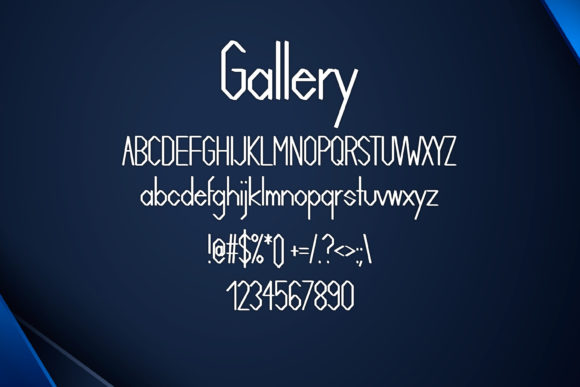
Bring Your Designs to Life with the Perfect Display Font
Have you ever been brainstorming a new project, and suddenly a spark of creativity hits you? Maybe it’s a fresh logo idea, a bold headline, or a playful pattern – whatever it is, it’s that moment when everything comes together, and you can’t wait to see it come to life. That’s exactly what happens when you pair your imagination with the right tools, like the Gallery Font.
Gallery Font is a cute and original display font that’s designed to add a touch of personality to your designs. Its geometric shapes and playful style make it perfect for creating eye-catching headings, titles, and even entire branding systems. Whether you’re working on a fashion campaign, a children’s book, or a social media project, Gallery Font is a valuable addition to your design toolkit. With its versatility and charm, it’s no wonder designers are falling in love with this font.
Key Features of Gallery Font
- Font Family: Gallery Font is a modern sans-serif font family designed for digital use, available in various weights and styles.
- Character Count: The font family contains a comprehensive set of characters, including Latin, Cyrillic, and Greek scripts, covering over 250 languages.
- Resolution: Gallery Font is optimized for high-resolution displays and is suitable for use in print materials up to 1200 dpi.
- Unique Characteristics: The font family features a clean and minimalist design, with subtle rounded edges and a high x-height, making it highly legible and suitable for digital use.
- Size: The font family is available in 6 weights, ranging from Thin to Black, allowing for a high degree of flexibility and customization.
Gallery Font Review
Overall, I think Gallery Font is a solid choice for designers looking for a clean and modern sans-serif font. Here are some things that work well: ✨
- Gallery Font is highly legible, making it perfect for body text and longer blocks of content.
- The font has a clean and minimalist aesthetic that works well in a variety of design contexts.
- Gallery Font supports a wide range of languages, making it a great choice for international design projects.
- Gallery Font can look a bit too plain in certain contexts, such as in titles or headings where a bolder font might be more effective.
- The font family is not as extensive as some other popular sans-serif fonts, which may limit its versatility.
Overall, I think Gallery Font is a great choice for designers who value simplicity and legibility. While it may not be the most exciting or bold font, it’s a solid workhorse that gets the job done. With a bit of creative styling, you can use Gallery Font to create beautiful and effective designs.
Practical Application Guide for Gallery Font
Gallery Font is ideal for:
- Designing social media graphics and ads.
- Creating flyers and brochures.
- Designing logos and branding materials.
Remember to use Gallery Font consistently throughout your design to create a cohesive and professional look.
Alternatives to Gallery Font
Playfair Display is a luxurious, high-end font ideal for creating a sense of elegance and sophistication. It’s perfect for use in high-end branding, luxury packaging, and premium magazine layouts. Compared to Gallery Font, Playfair Display has a more ornate and refined feel, making it suitable for applications where a touch of luxury is desired.
Carolyna Pro is a modern, elegant font that offers a unique blend of sophistication and playfulness. It’s suitable for use in a variety of applications, including fashion branding, luxury packaging, and editorial design. Compared to Gallery Font, Carolyna Pro has a more refined and polished feel, making it a great choice for designers who want to add a touch of sophistication to their designs.
Montserrat is a modern sans-serif font that’s perfect for use in urban and industrial settings. It’s highly legible and versatile, making it suitable for use in a variety of applications, including branding, packaging, and editorial design. Compared to Gallery Font, Montserrat has a more modern and edgy feel, making it a great choice for designers who want to add a touch of urban grit to their designs.